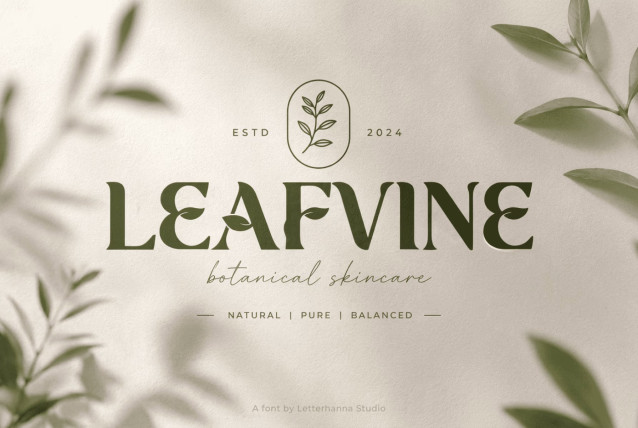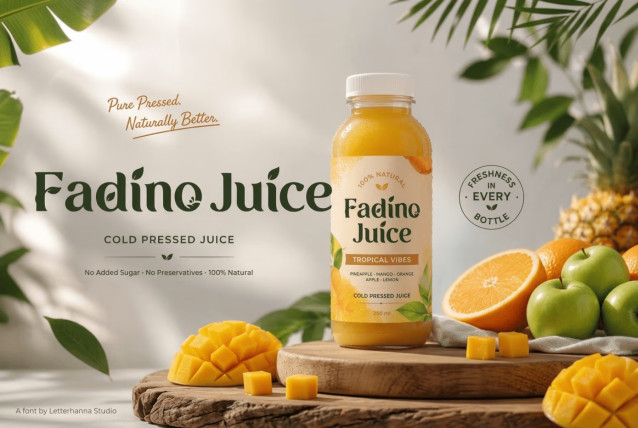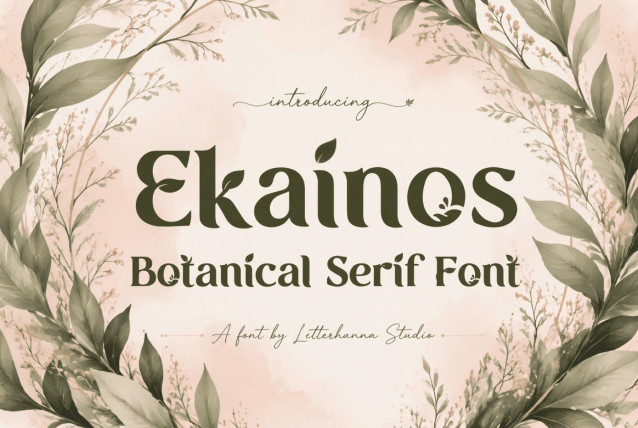
Ekainos Font
Ekainos Font: Nature Botanical Serif for Modern Brands
Some fonts are built for spreadsheets. Ekainos was built for gardens, greenhouses, and the quiet corners of a farmers market where hand-lettered signs still mean something. It’s a bold, high-contrast serif display typeface finished with delicate leaf and vine details — a genuine botanical font for brands that want to feel grown, not manufactured.
Plenty of typefaces claim to be “nature-inspired,” but most just add a leaf icon somewhere in the marketing image. Ekainos takes a different approach. The botanical elements are part of the letterforms themselves — a leaf curling off an ascender, a vine wrapping a bowl, a small sprout finishing a terminal. The result is a nature font where the organic character is structural, not decorative.
The uppercase alphabet is sturdy and classic, the kind of serif you’d expect on a well-made sign. The lowercase is where the personality lives — slightly rounded, a little playful, with looping terminals that feel handwritten rather than engineered. Together, the two cases create a typeface confident enough for a headline yet warm enough for packaging copy.